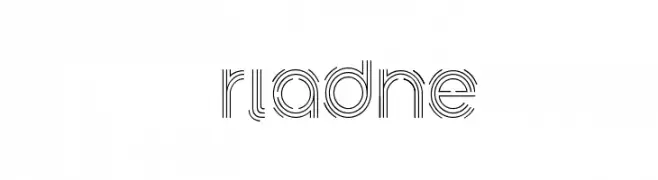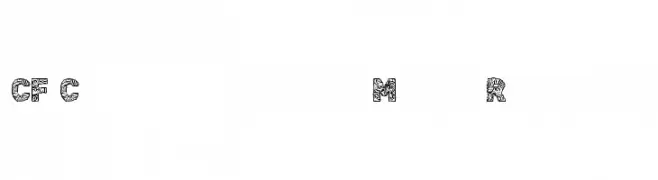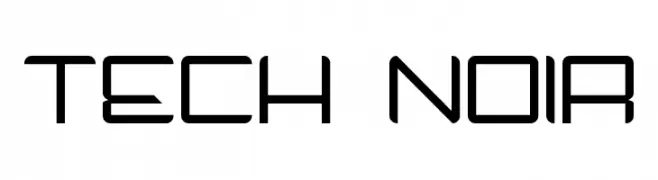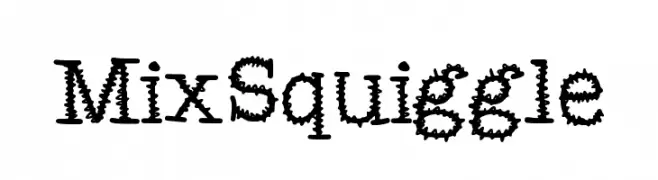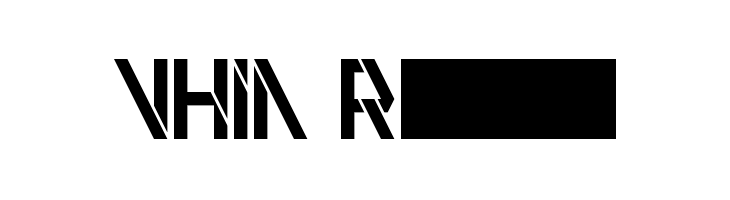
( Fonts by Projeto Tipo da Fonte )
A decorative, modern font with parallel line detailing and geometric structure.
( Fonts by CloutierFontes )
A decorative font with intricate, Mayan-inspired patterns.
( Fonts by Tori Ray )
A modern, geometric font with rotor-like elements and a futuristic aesthetic.
( Fonts by Makeda Joseph )
A decorative font with intricate, ornamental designs and artistic flair.
( Fonts by Mikko Sumulong )
A playful, squiggly font with a hand-drawn, energetic style.